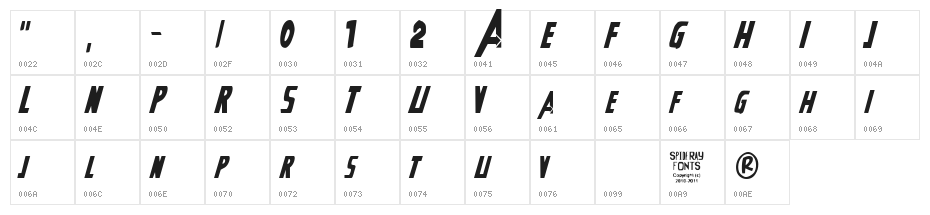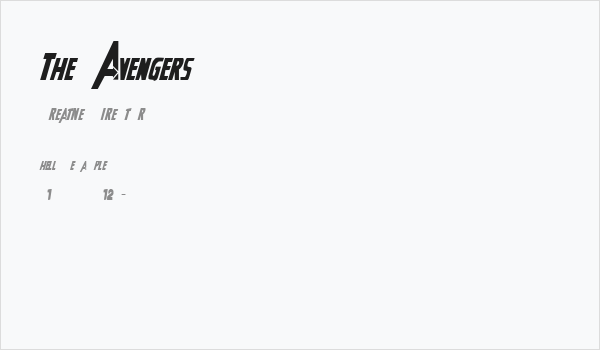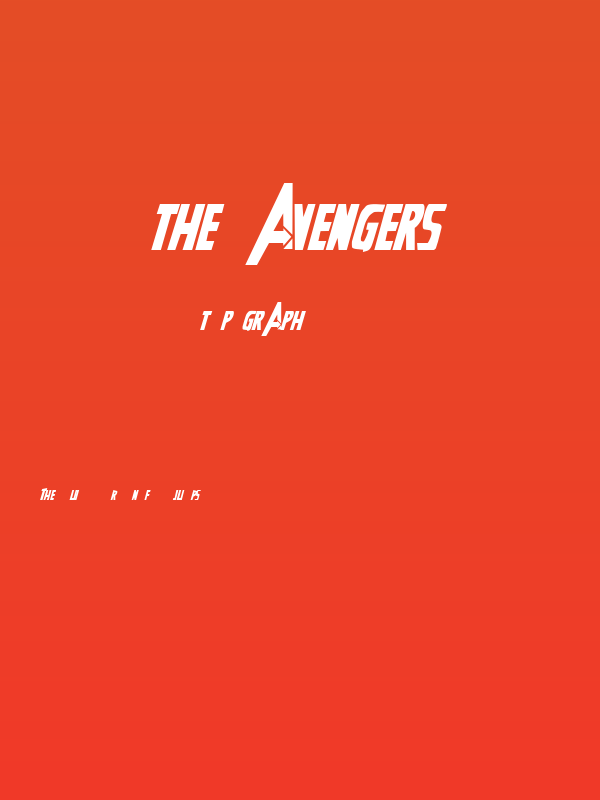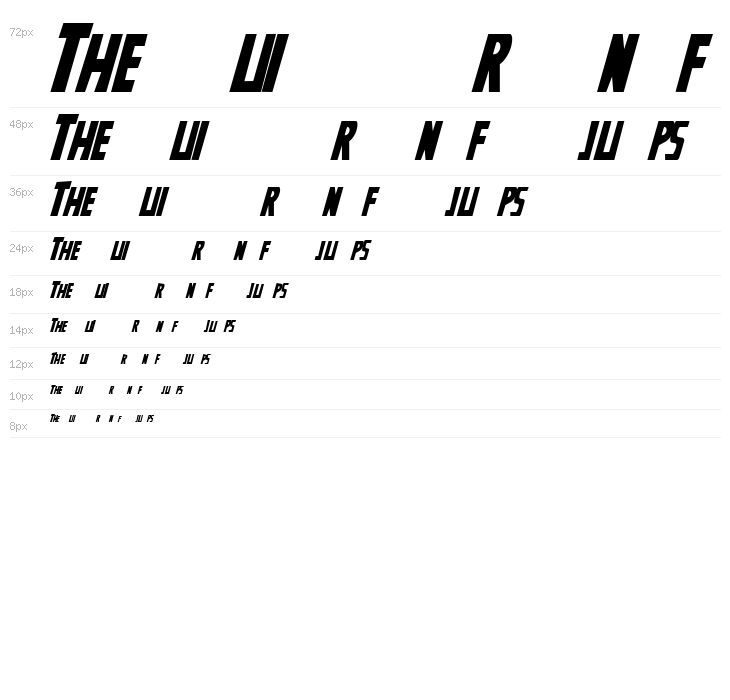
The Avengers Font
The Avengers Description
This font features a bold and dynamic style with a strong presence. The characters are designed with sharp angles and a slightly italicized slant, giving them a sense of motion and energy. The uppercase letters are particularly striking, with unique cutouts and geometric shapes that add a futuristic and heroic feel. The numbers and special characters maintain this bold aesthetic, ensuring consistency across all glyphs. This font is perfect for projects that require a powerful and modern look.
| Proposed Projects | Ideal for movie posters, video game titles, branding for tech companies, and superhero-themed designs. |